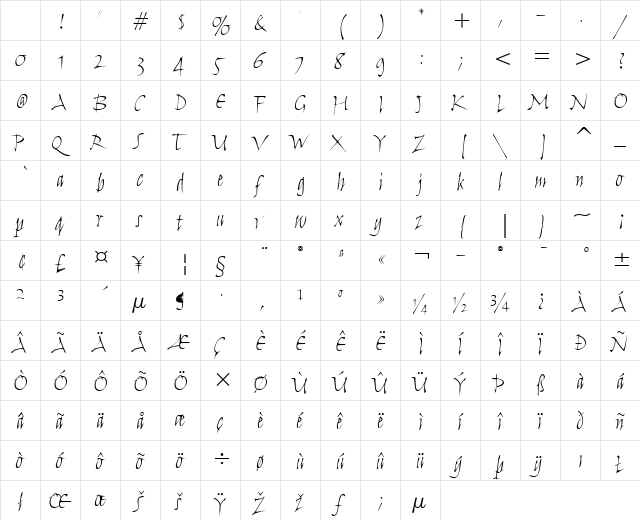
Complete Humana Script ITC Light glyph index. Displaying only characters natively supported by Humana Script ITC Light font.
Humana Script ITC flows with the natural rhythm of handwritten lettering, making it ideal for designs that call for warmth and personal expression. Its slender proportions lend an understated elegance to any composition.
Font Pairing: Combine Humana Script ITC with a simple geometric sans for maximum contrast - the tension between flowing curves and clean structure is a classic typographic pairing.
Pro Tip: Use Humana Script ITC for short runs of text - names, titles, or taglines. Extended body copy in script faces tires the eye quickly.